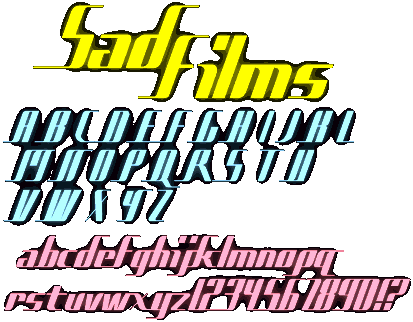
Delete Bad films and replace it with Sad films. Delete the old Sadfilms if you had the misfortune of having downloaded it. I got rid of the awful E and X. Bleah. I'm suprised I didn't get hate mail for those. The angles never really lined up and now they do. The spacing only made sense for the lowercase characters, now it works for both cases. The lowercase "i" never quite lined up with the "t" or "f" but it sure does now. A few of the curves were the opposite of appealing - I hope I got the worst ones.
You can actually use it for something now but please don't use ALL CAPS! If you use ALL CAPS with this font and I find out about it you're gonna get such a pinch! Why did I fix it? Why didn't I just leave you the old, crappy version? I guess I'm just greedy for more donations. Greedy like a little monkey.